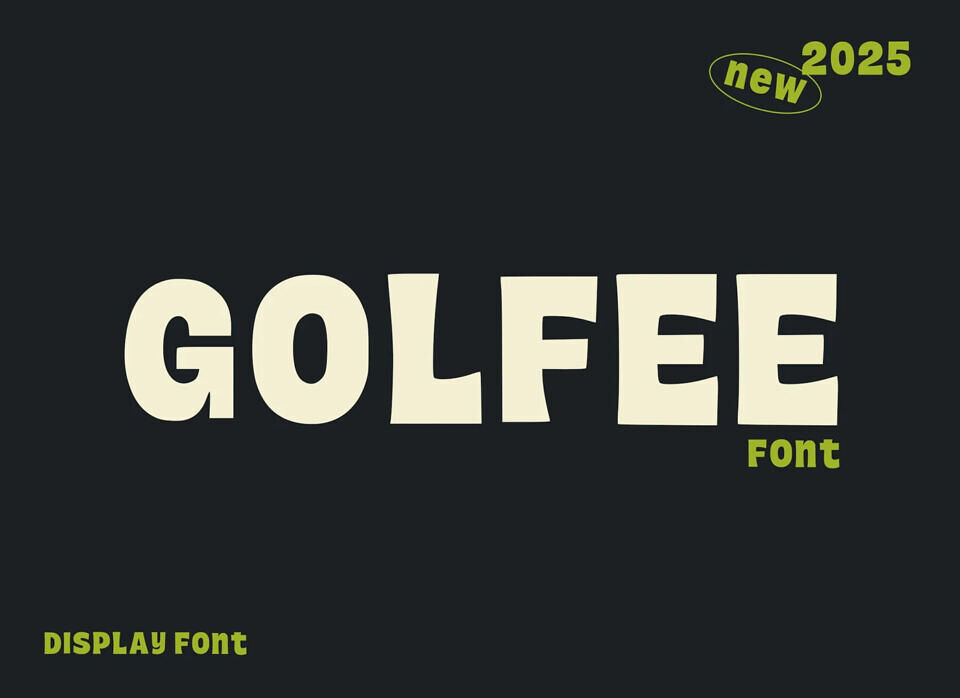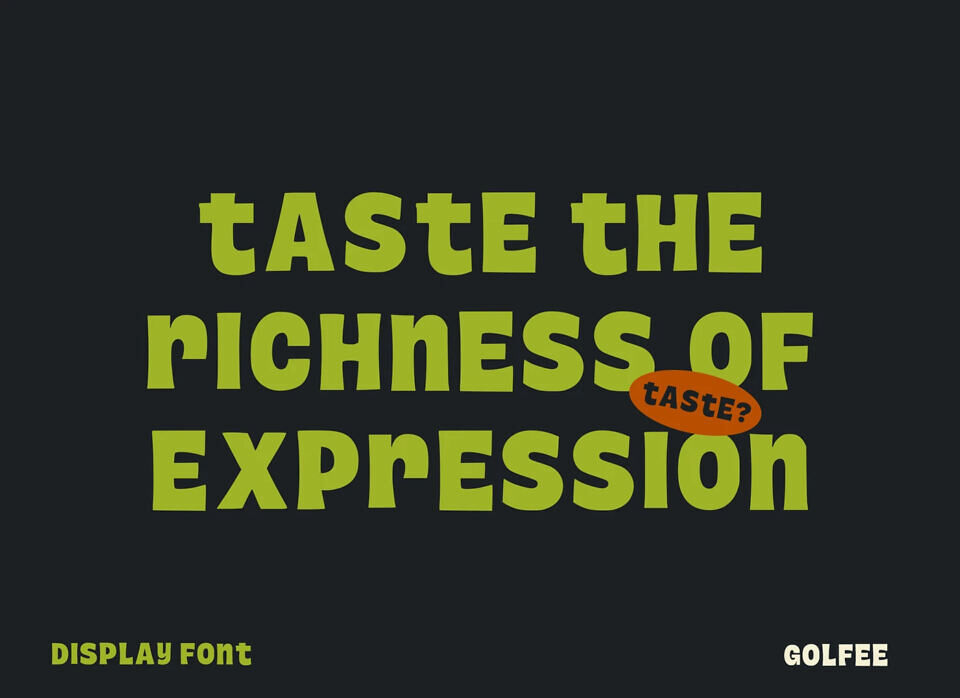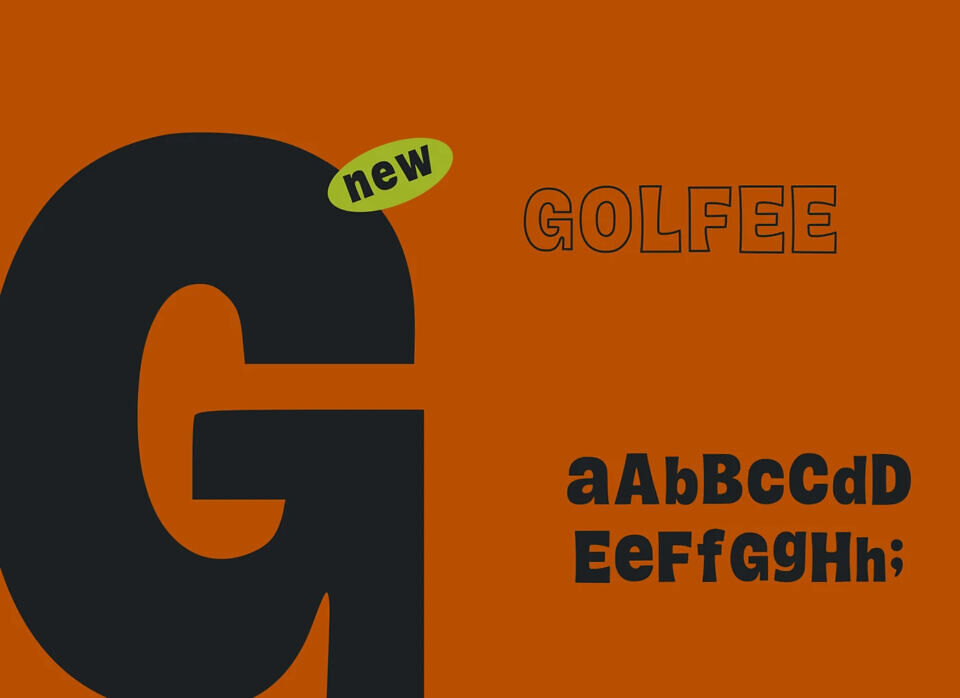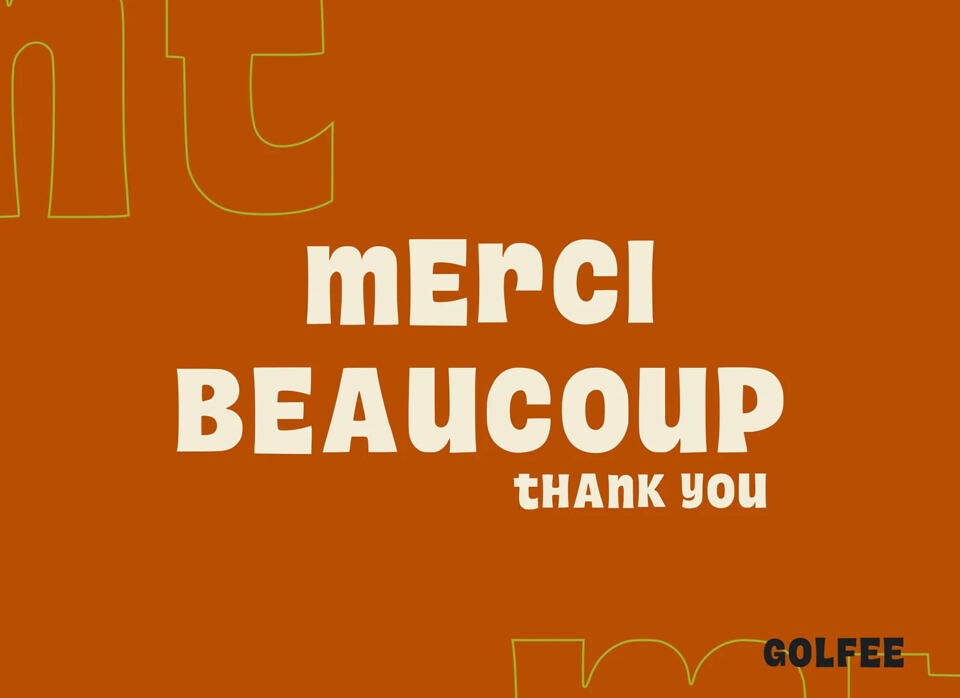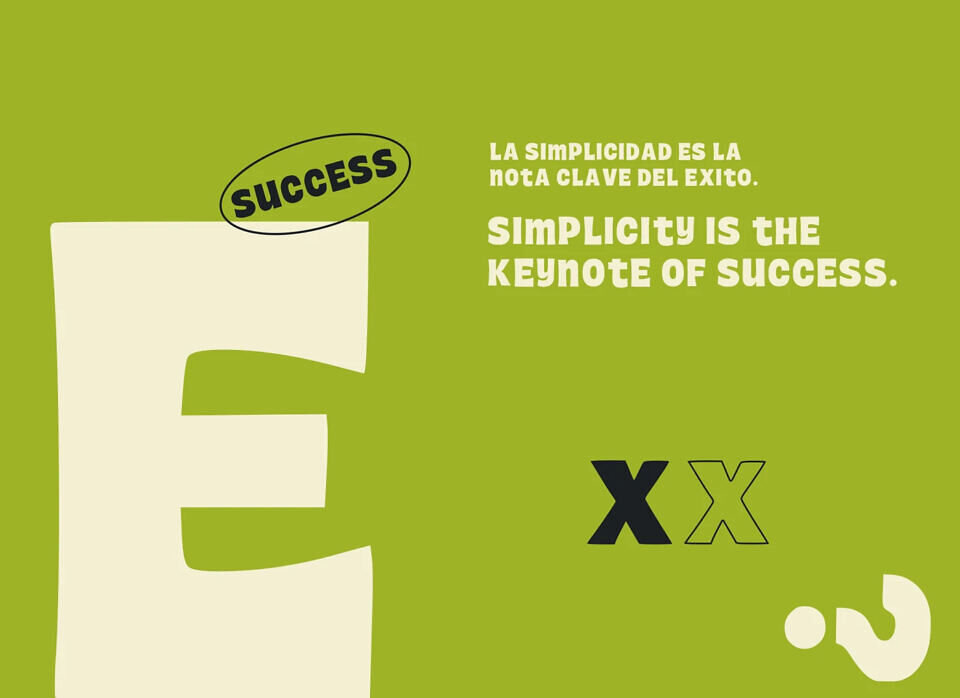
Introducing Golfee, a bold and quirky display font crafted to bring a fun and energetic vibe to your creative projects. With its chunky letterforms and slightly irregular shapes, Golfee delivers a unique character that feels both modern and approachable.
Ideal for branding, posters, packaging, headlines, and children’s content, this font adds a dose of personality wherever it’s used.